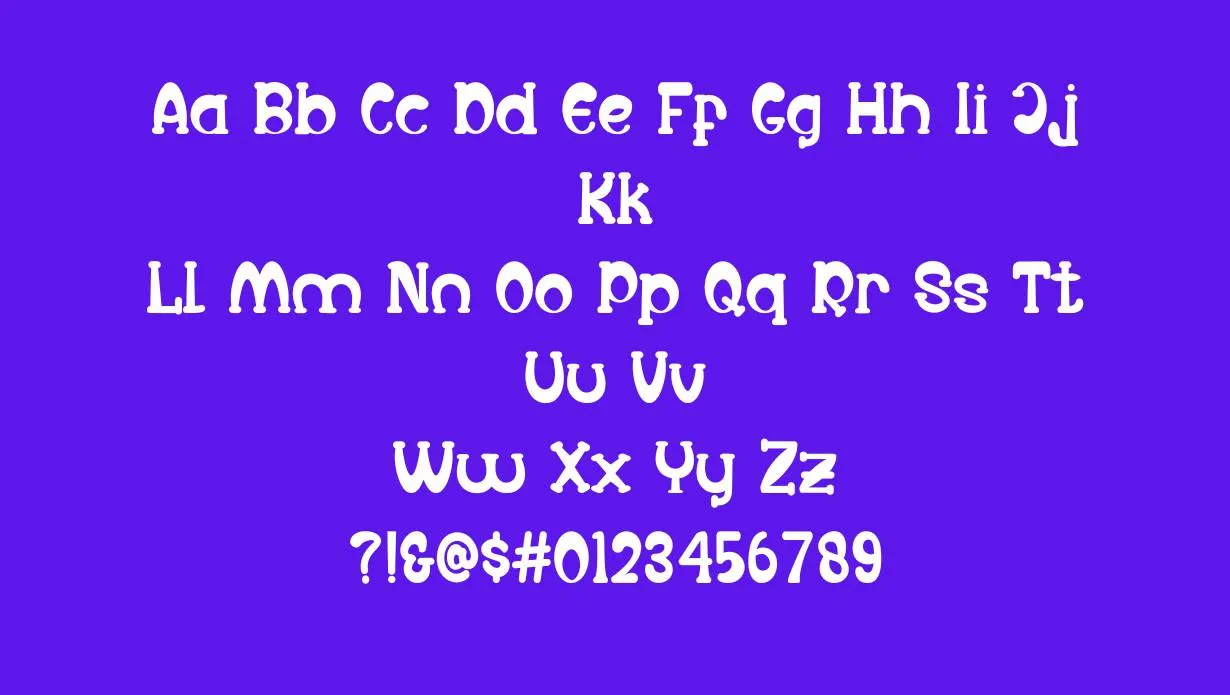
Runaway Font brings a sense of movement and spontaneity to your designs. With its bold and dynamic letters, this font is perfect for projects that aim to capture a feeling of energy and motion. Use it for sports events, action-packed posters, or any design where a sense of excitement is desired.
| Name | Runaway Font |
| Designer | Iulian Maftei |
The font’s heavyweight and slightly expanded width give it a strong and impactful appearance. Technically, Runaway Font is crafted with attention to detail, ensuring that each letter contributes to the overall sense of speed and dynamism. Its design elements make it a go-to choice for projects that want to convey a lively and energetic vibe.